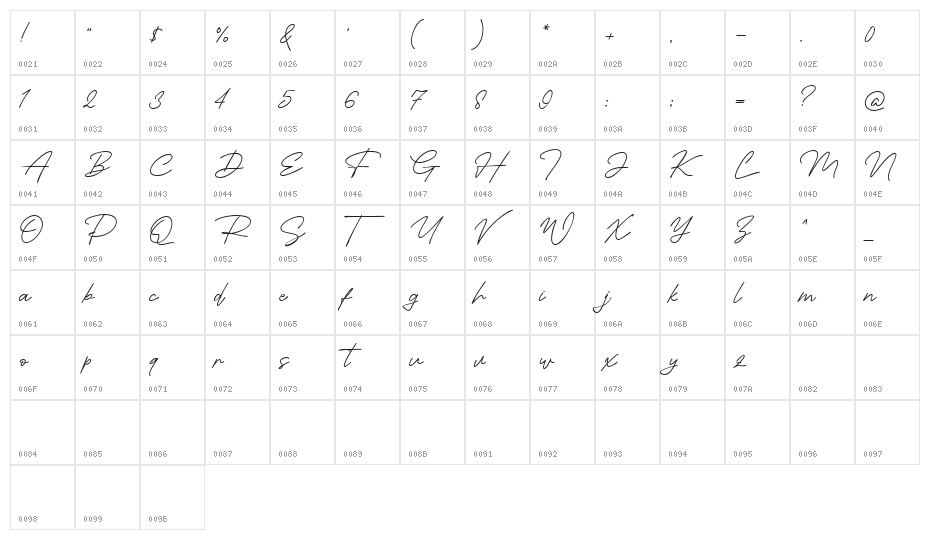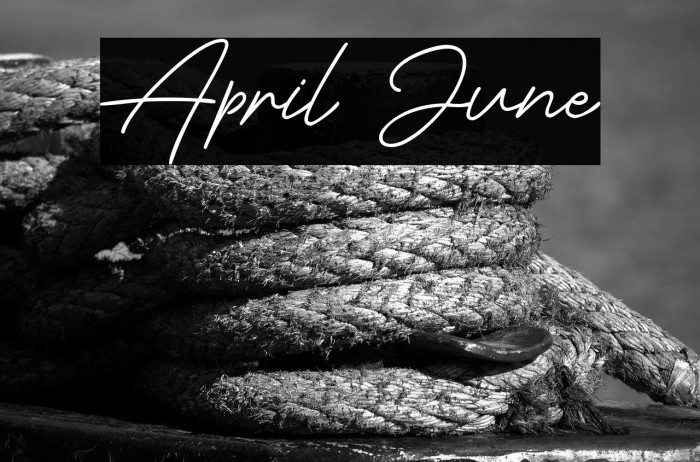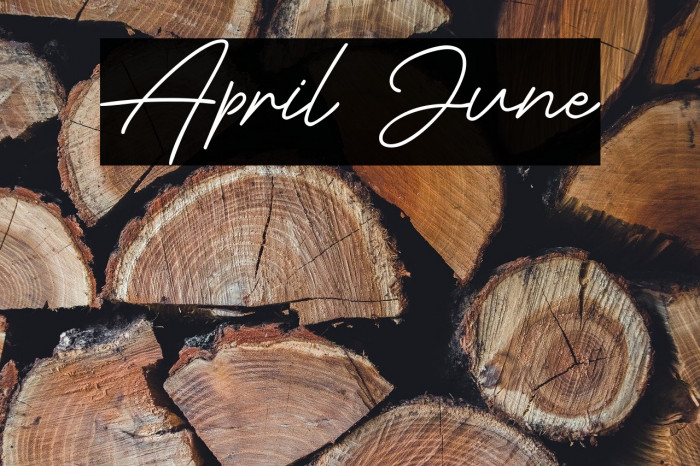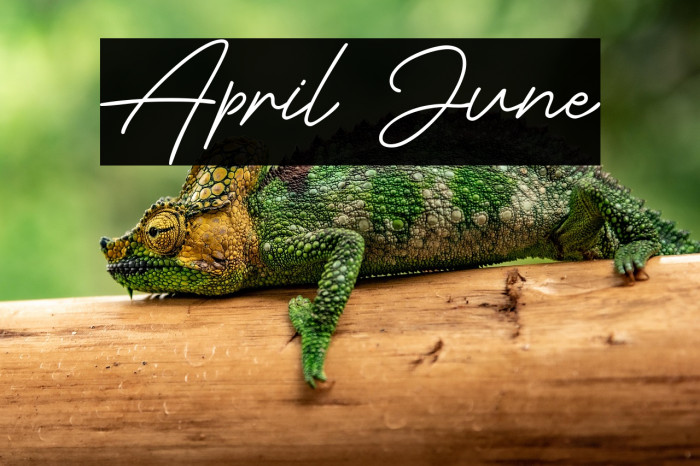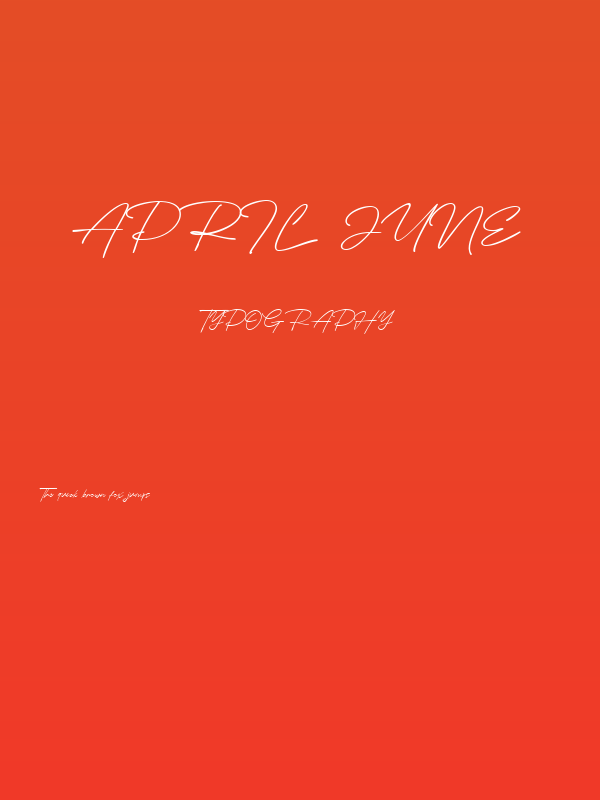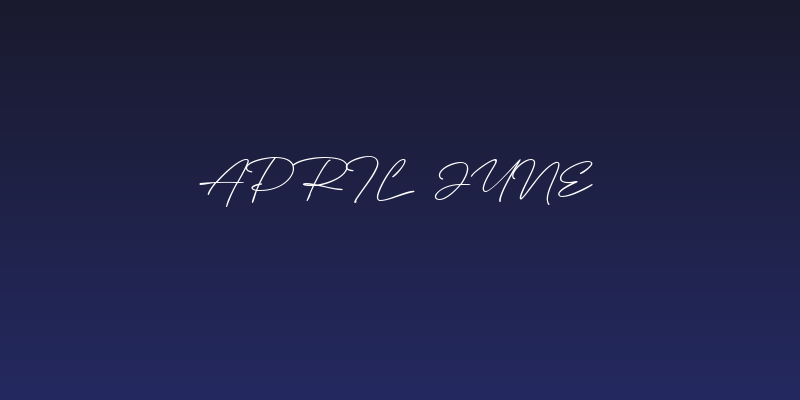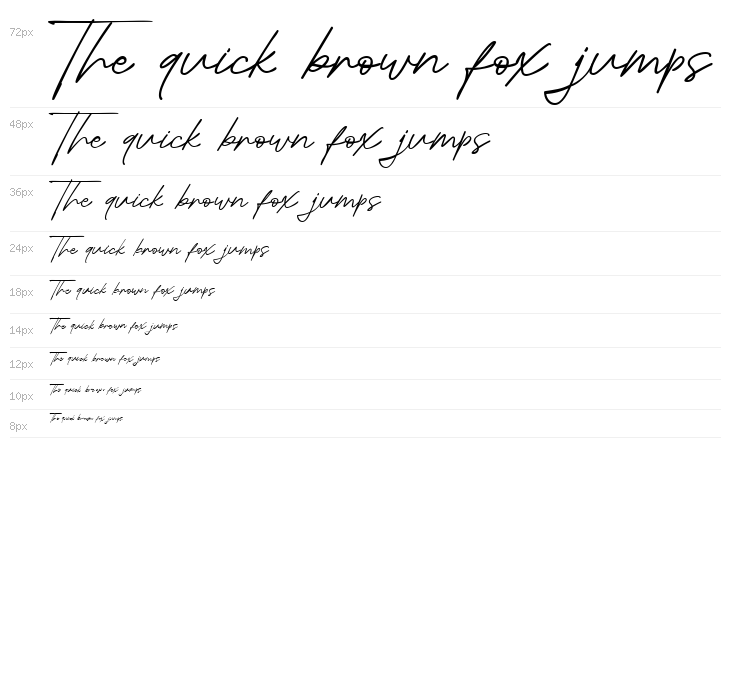
April June Font
April June Description
This font exudes elegance and fluidity with its cursive, handwritten style. The characters are connected smoothly, giving it a natural and flowing appearance. The strokes are consistent, with a medium contrast that adds to its readability while maintaining a sophisticated look. The uppercase letters are slightly larger and more pronounced, while the lowercase letters maintain a consistent baseline, enhancing the font's overall harmony. The numerals and special characters are designed to match the script's flowing nature, making it versatile for various applications.
| Overall Style | Elegant, Handwritten |
| Use Case | Logos, Invitations, Personal Branding |
| Proposed Projects | Ideal for wedding invitations, greeting cards, personal branding, and elegant logos. |